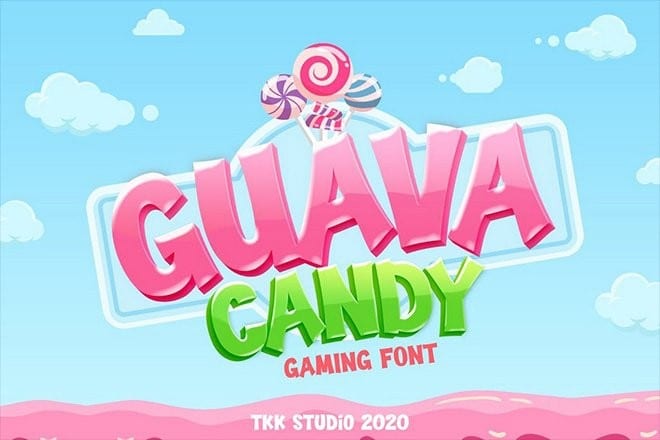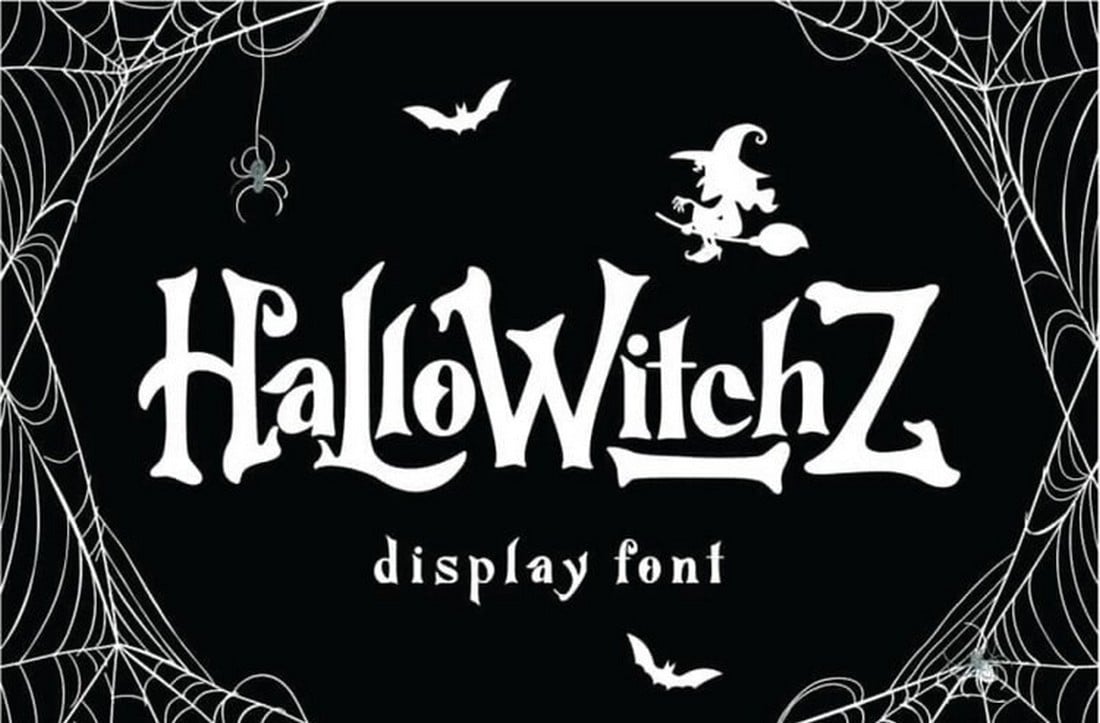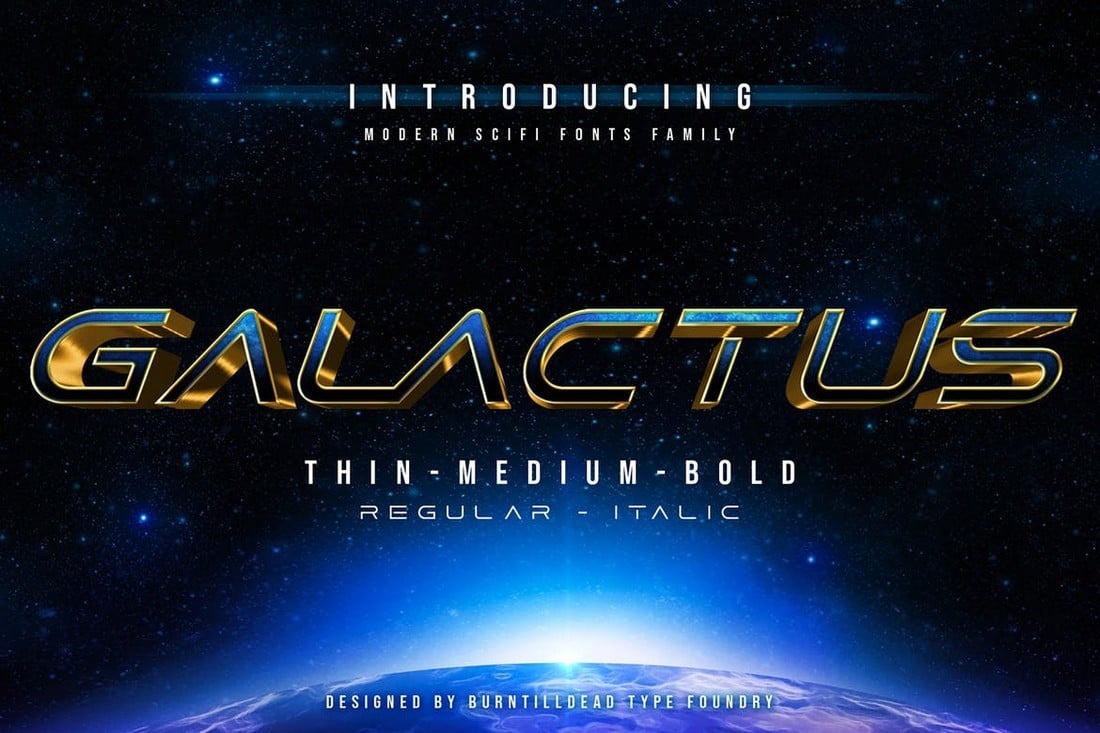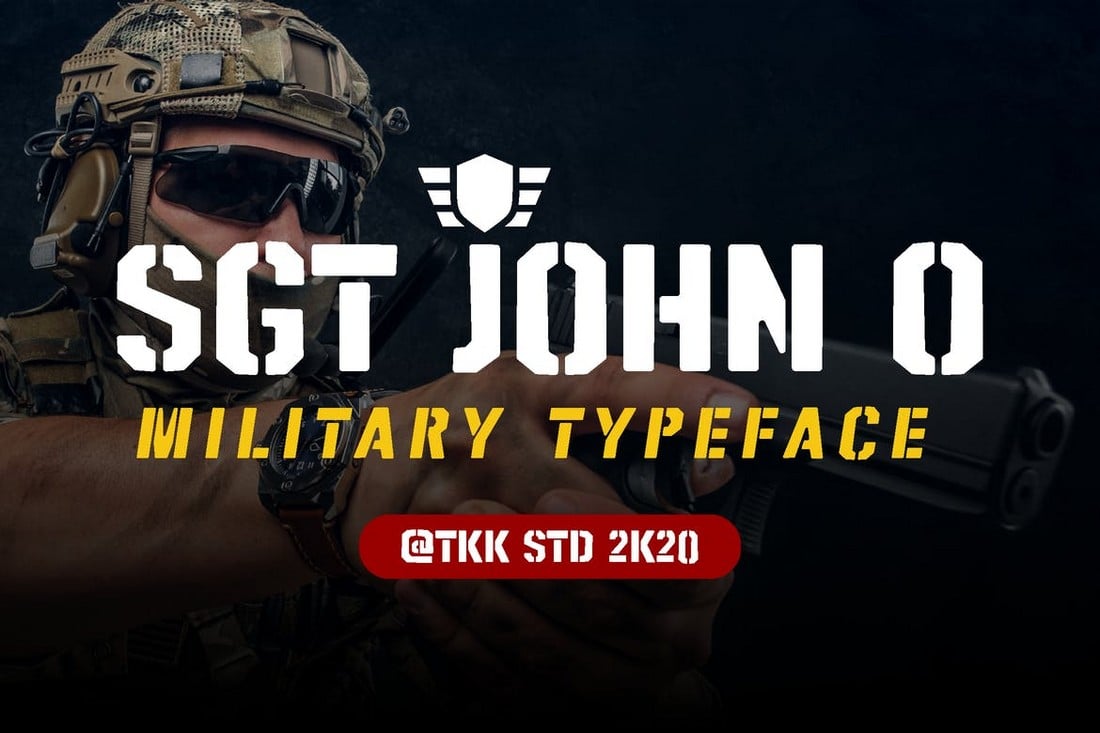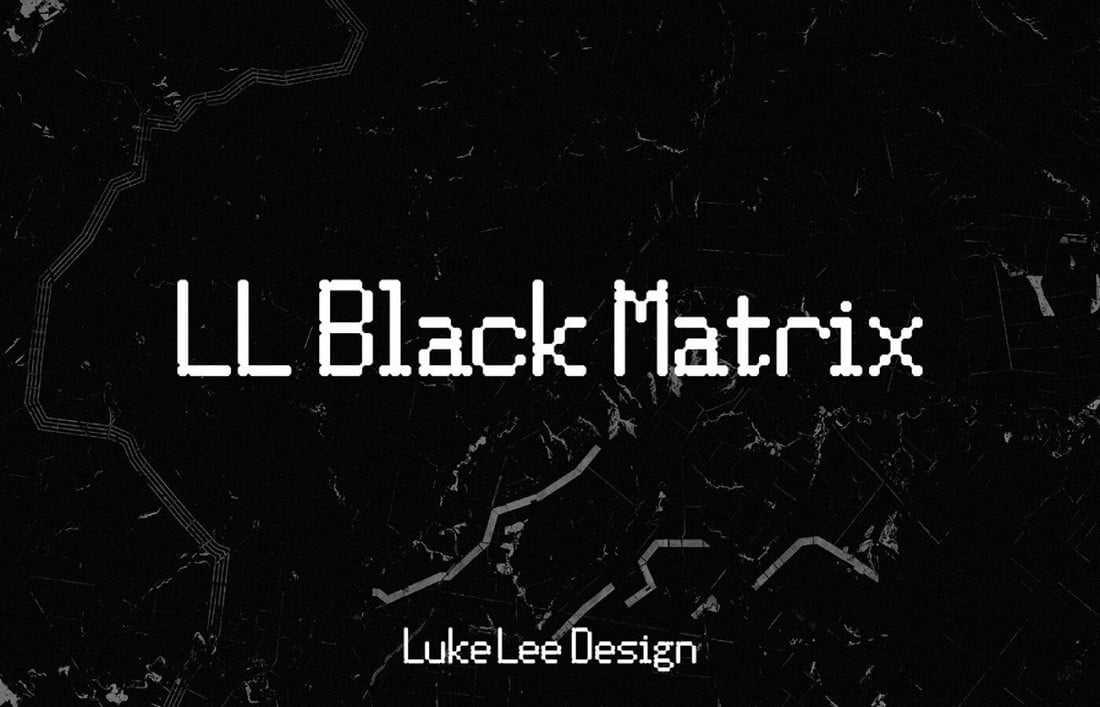
The gaming industry is now even bigger than Hollywood and it continues to grow every year. Great designs are in fact partly responsible for the success of many great video games.
Whether it’s the colorful graphics on a landing page website, social media posts used to promote games, or the preview images on the App Store page, it’s these designs that attract more people to download games and try them out in the first place.
If you’re a designer working on promoting a game, finding an appropriate font should be one of your top priorities. We handpicked some cool gaming fonts to help you get started.
These fonts come in all kinds of styles and designs. You can use them to design promotional material for games or even craft titles for your YouTube covers and Twitch profiles. Check them out below.
It’s only appropriate to start a gaming fonts collection by paying homage to retro video games. This font features an old-school pixelated letter design. Not only that but it also comes with 17 pixelated martian designs inspired by the classic arcade game. You can use those to add a creative look to your designs.
If you’re working on a game that features wildlife or jungle environments, this gaming font is perfect for designing the marketing materials for your game. It features a big blocky design with textured characters. The font includes both uppercase and lowercase letters.
This gaming font features a cartoon-like character design that makes it a great choice for designing titles and headings for kids’ games. Of course, you can also use it to design social media covers and other designs as well. It comes in OpenType, TrueType, and WebFont versions.
The creatively shaped characters of this font make it most suitable for designing promo designs for mobile games. It especially resembles the designs used in mobile games like Candy Crush. This font also includes uppercase and lowercase letters as well as numbers and punctuation.
Vanderick is a font that features a design inspired by fantasy games. It comes with a Gothic-themed letter design that’s ideal for crafting titles for fantasy and horror games, as well as for gaming channels and streamers.
This is a free font you can use with personal projects. It features a stylish letter design inspired by cyberpunk games. It’s perfect for designing everything from gaming logos to titles for your social media profiles.
Speed Beast is another great free font you can use to craft designs related to racing games. It comes with a set of bold and modern letters. And it’s free to use with personal projects.
Another creative gaming font featuring jungle-inspired design. This font can be used to craft all kinds of gaming designs from website headers to social media designs and much more. It includes both sets of uppercase and lowercase letters.
Starzone is most suitable for designing logos, social media covers, and promo materials for futuristic and space-themed games. It comes with a set of characters that uses futuristic military-style designs.
Inspired by Japanese manga and games, Tsuki is a font that features a set of beautiful characters that are perfect for all kinds of gaming-related designs. The blocky letter design of this font will also help you craft more attention-grabbing titles and headers.
You can use this gaming font to craft designs with the retro pixelated style. It includes a creative set of letters with each character featuring a unique design. The font is available in TrueType, OpenType, and WebFont versions.
This font is designed with eSports teams in mind. It has a modern letter design that will allow you to craft logos, badges, and other designs to promote your eSports teams in a professional way.
You can use this free font to design modern and attractive titles for your gaming channels and social profiles. The font comes with both uppercase and lowercase letters.
Game Day is a free hand-drawn font that’s most suitable for designs related to sports games. It’s an all-caps font featuring lots of alternate letters. And it’s free to use with personal projects.
Grind is a bold gaming font that comes with a rough and textured letter design. This font can make your game titles and headings look more touch while also giving them a unique look that stands out from the crowd.
Bitbybit is a creative gaming font that uses a retro-themed pixelated design. This font comes with both uppercase and lowercase letters featuring adorable pixelated edges. It’s available in OpenType, TrueType, and WebFont versions.
This font uses the same pixelated retro font design but in a different style. It comes with blocky letters that look like objects from games like Minecraft. The font also features a unique 3D look as well. It’s available in OpenType format.
Herona is a great font you can use to design a logo, badge, or other social media designs for eSports teams. The font features a creative and stylish design that looks great when used with outlines and shadows.